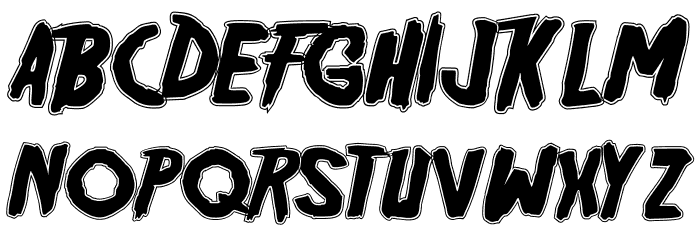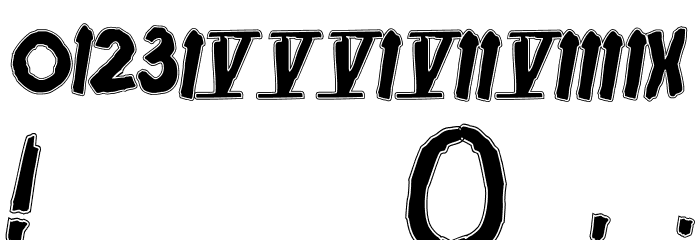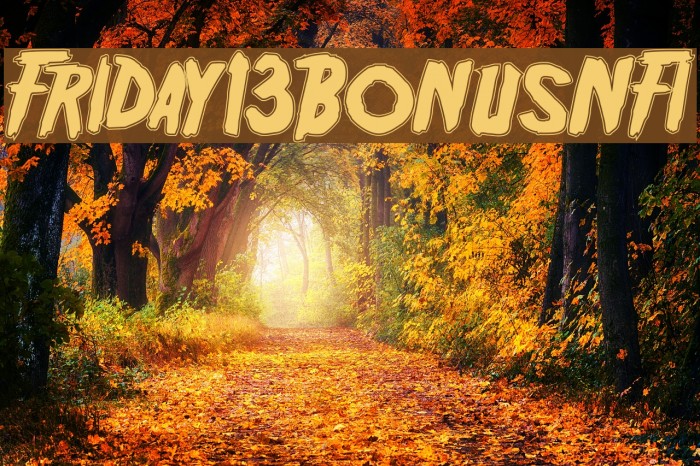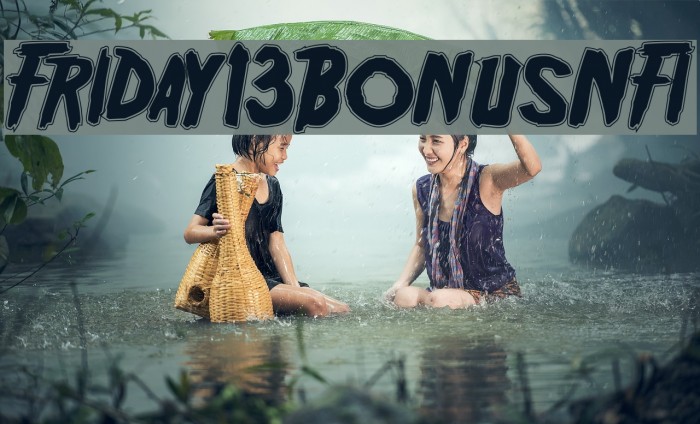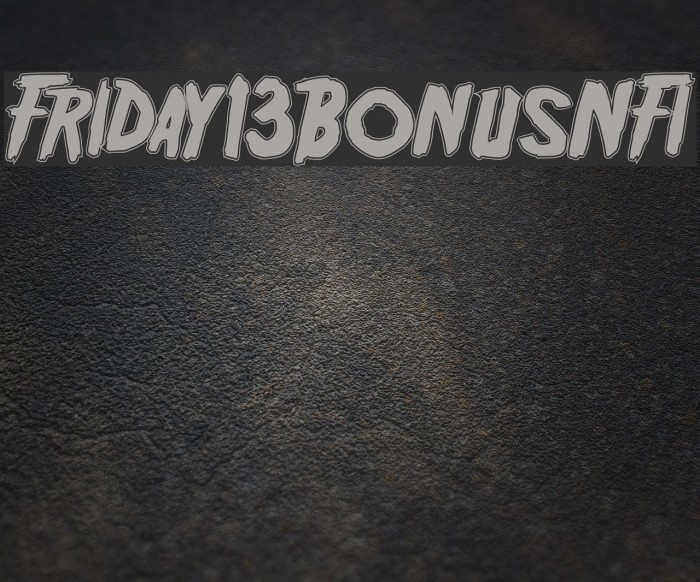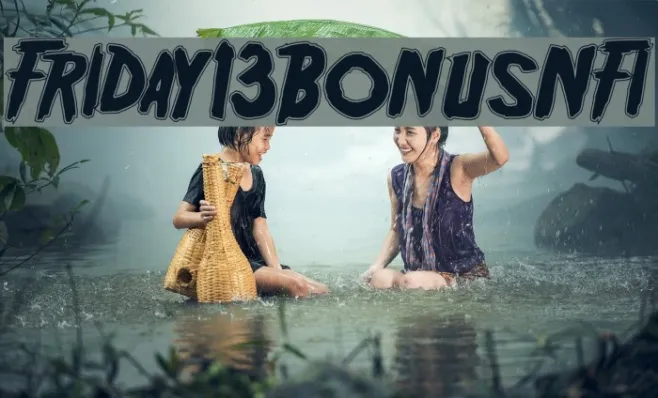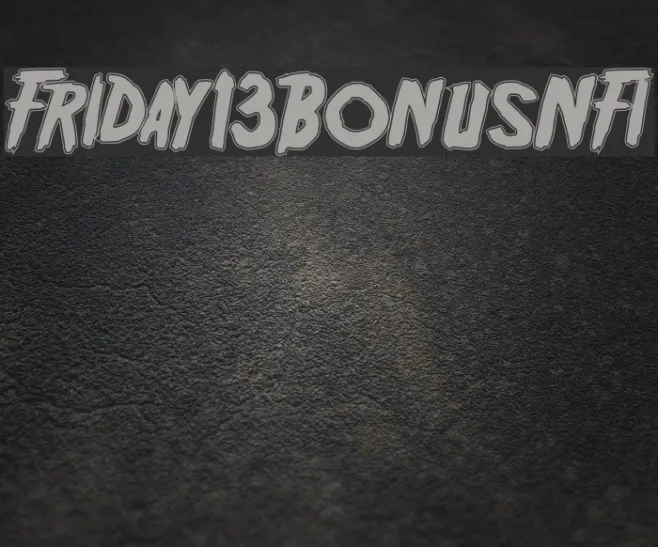
Friday13BonusNFI Font
This font features a bold and dynamic style with a distinct, edgy appearance. The letters are characterized by thick, uneven strokes that create a sense of movement and energy. The uppercase and lowercase letters maintain a consistent style, with sharp angles and a slightly irregular form that adds to the font's unique personality. The numbers and special characters follow the same design principles, ensuring a cohesive look across all elements. This font's boldness and distinctive style make it stand out, perfect for projects that require a strong visual impact.
A bold, edgy font with dynamic, uneven strokes and a strong visual impact.
- Proposed Projects: Ideal for horror-themed designs, movie posters, Halloween invitations, or any project needing a dramatic flair.
- Use Case: Headlines, Posters, Themed Events